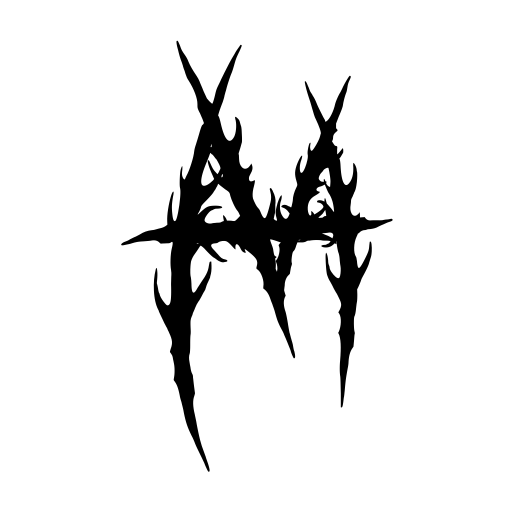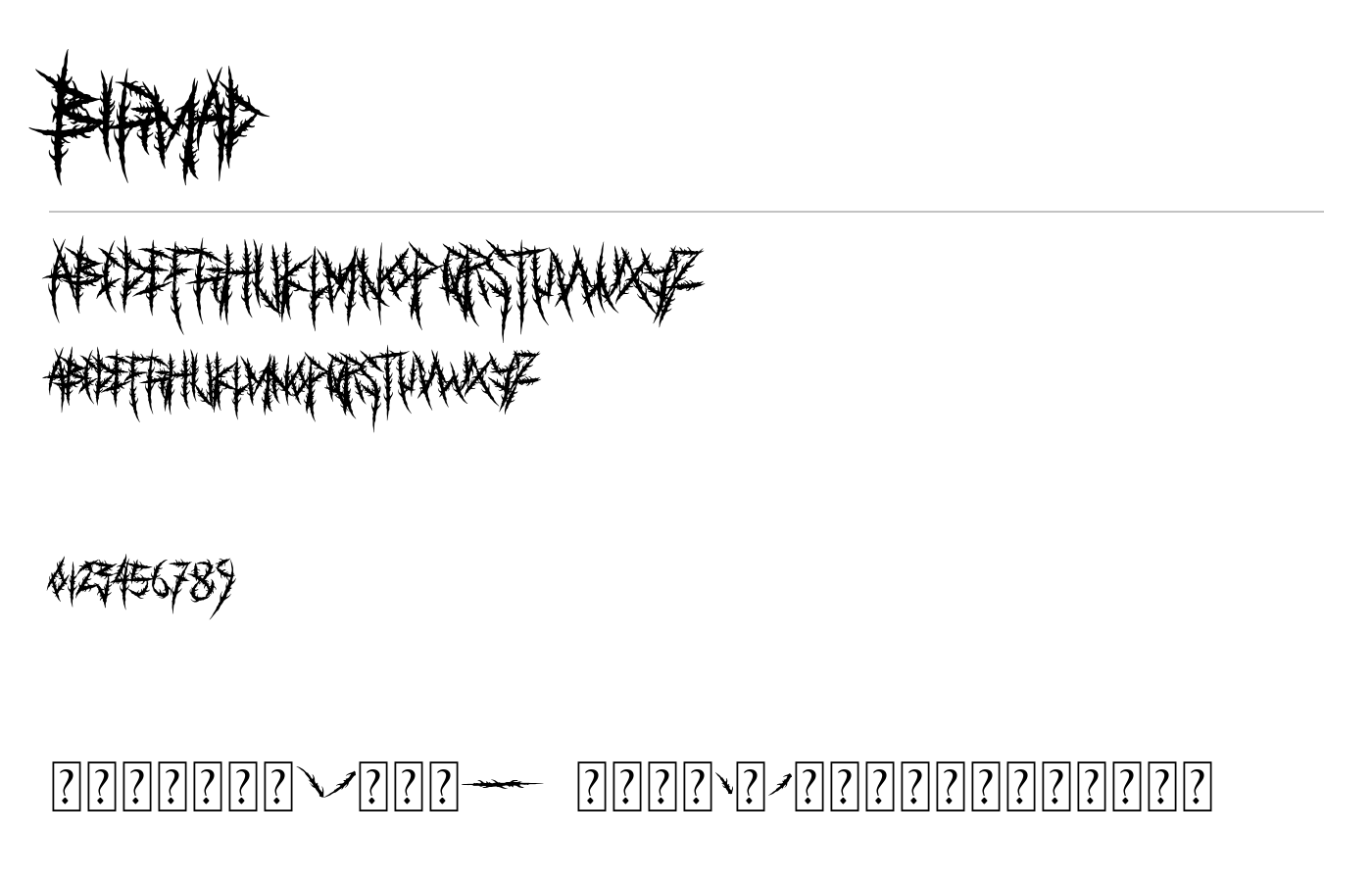
Bigmad is an aggressive, highly stylized display font characterized by sharp, jagged edges that evoke a raw, chaotic energy. Its condensed, irregular letterforms create a dark and intense mood, making it perfect for extreme music logos, underground event posters, and bold, edgy branding that demands attention. This font thrives in large sizes where its unique, thorny details can be fully appreciated.
Bigmad Font
About Bigmad Font